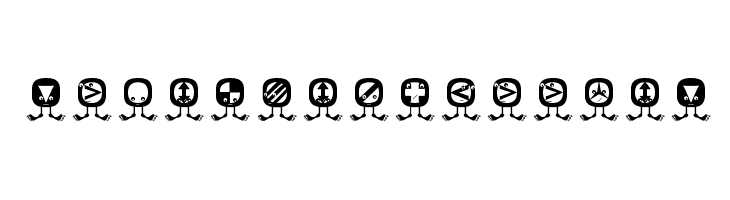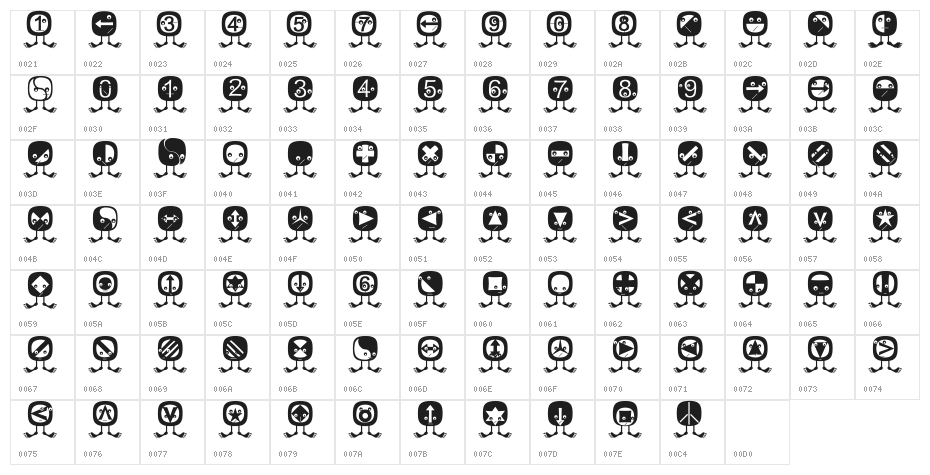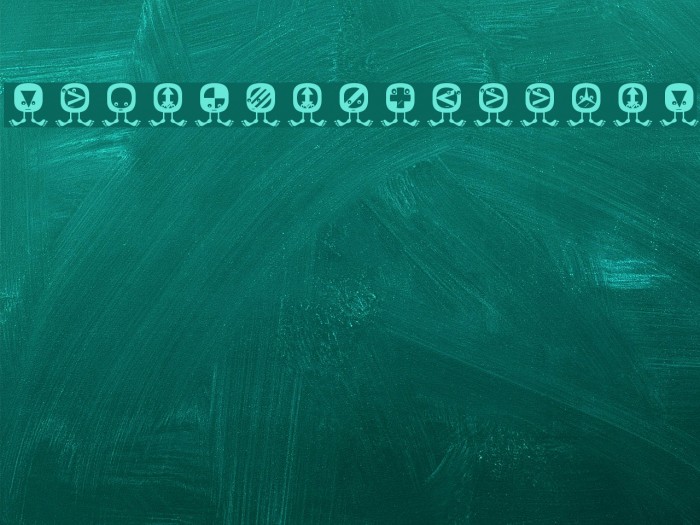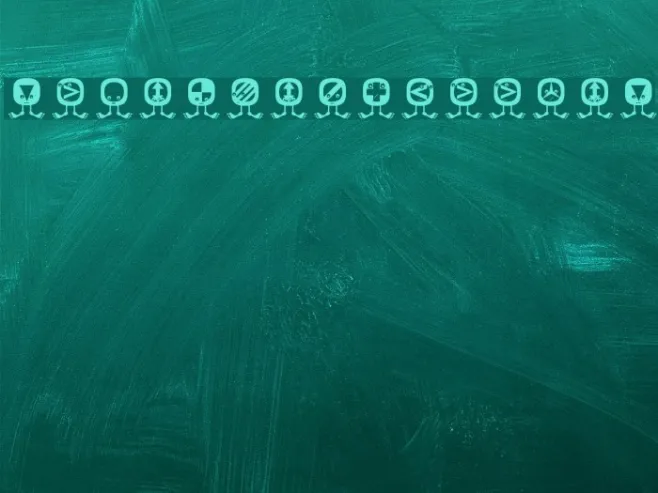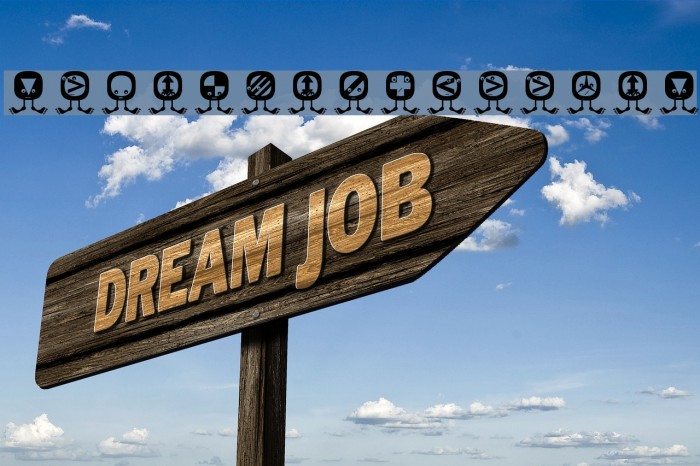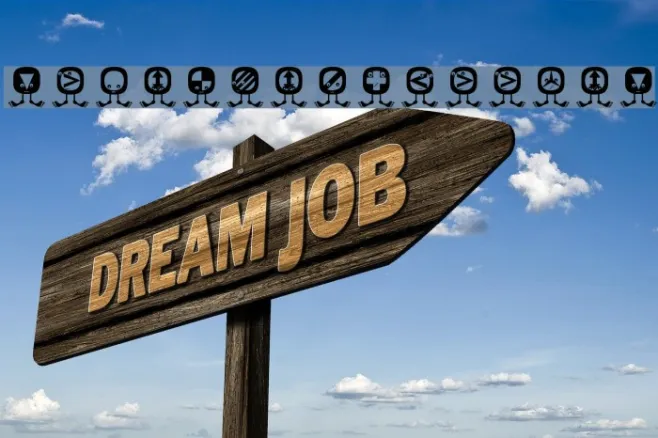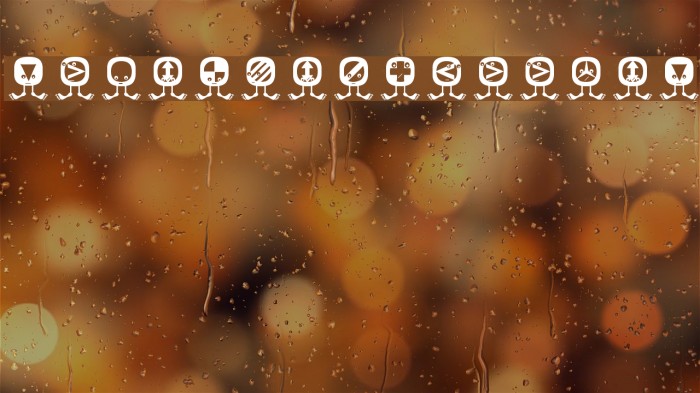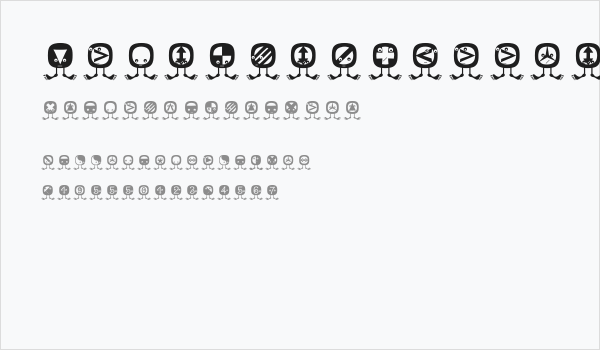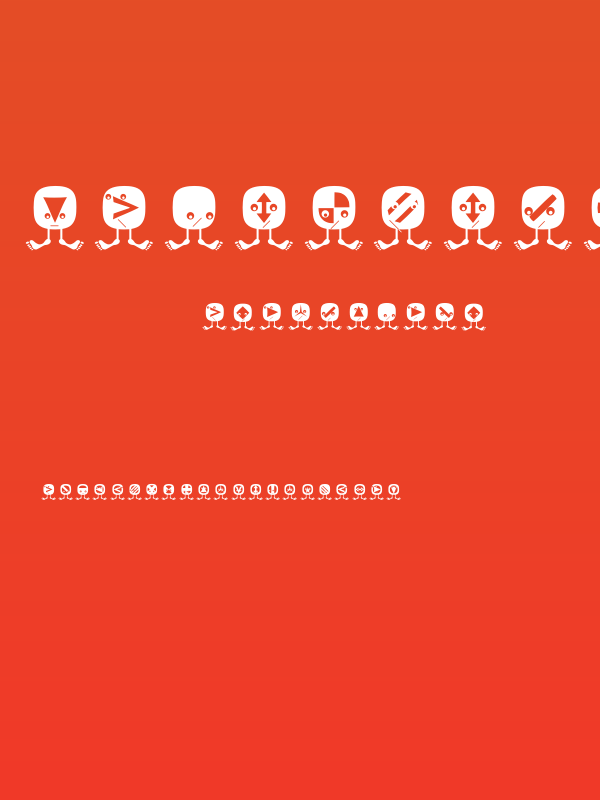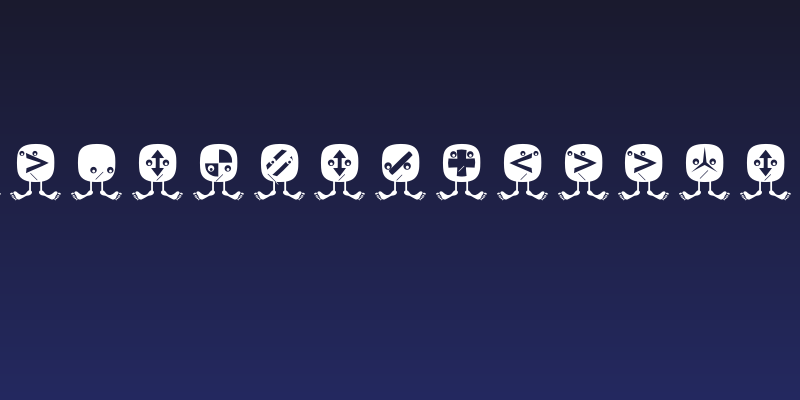
StandingButtonS Font
StandingButtonS Description
This is a playful and whimsical decorative font where each character is represented as a unique button-like figure with legs. The design is highly stylized, with each letter and number enclosed in a rounded square shape, featuring various facial expressions and patterns. The characters are uniform in size, creating a cohesive look, yet each one has its own distinct personality. The font is characterized by its bold, graphic style, making it stand out as a display typeface. The use of simple geometric shapes and high contrast between the black and white elements adds to its visual appeal. This font is not suitable for body text but excels in creative and fun design projects.
| Use Case | Logos, Posters, Creative Projects |
| Proposed Projects | Ideal for children's books, playful branding, posters, and creative design projects that require a fun and whimsical touch. |